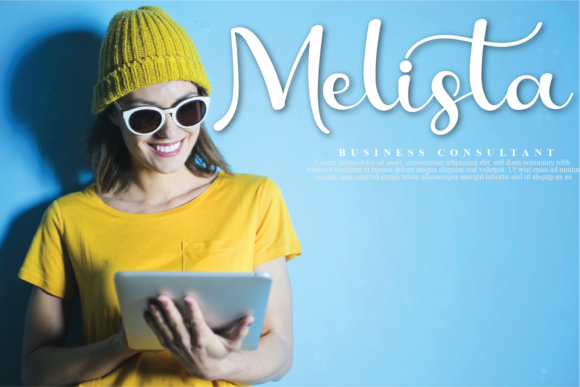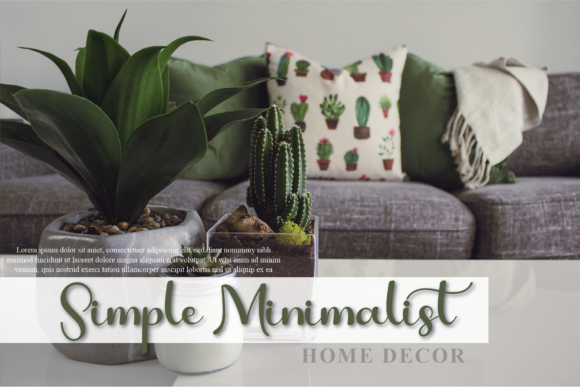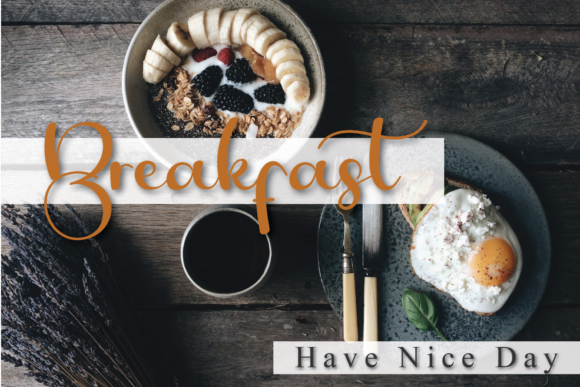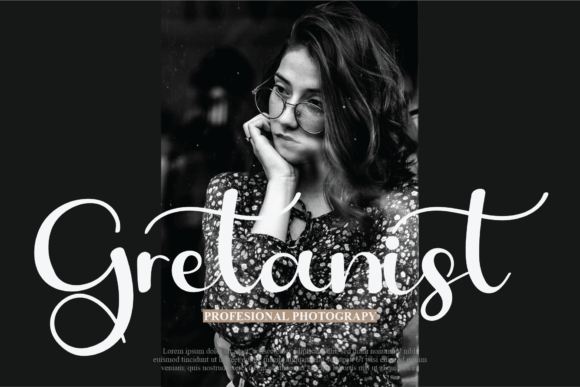
Berto Font: Elevate Your Creations with a Round Lettered and Flowing Script Font
Are you tired of using the same old fonts for your designs and crafts? Look no further than Berto Font, a beautiful round lettered and flowing script font that can instantly bring your creations to life. In this article, we’ll explore the features and benefits of Berto Font, and show you how to incorporate it into your favorite projects.
What is Berto Font?
Berto Font is a unique and elegant script font that features round lettering and flowing strokes. Its distinctive style sets it apart from other fonts, making it perfect for adding a touch of personality and whimsy to your designs. Whether you’re a designer, crafter, or DIY enthusiast, Berto Font is a versatile and easy-to-use font that can elevate your creations and make them stand out.
Key Features of Berto Font
- Round Lettered: Berto Font features round lettering that gives it a soft and friendly feel. This makes it perfect for designs that require a personal touch, such as invitations, greeting cards, and social media graphics.
- Flowing Script: The flowing script style of Berto Font adds a touch of elegance and sophistication to your designs. It’s perfect for creating beautiful headings, titles, and quotes that will capture the attention of your audience.
- Easy to Read: Despite its elegant style, Berto Font is easy to read and understand. This makes it perfect for body text, captions, and other applications where readability is important.
- Highly Versatile: Berto Font can be used for a wide range of design applications, from digital graphics to print materials. It’s perfect for designers, crafters, and DIY enthusiasts who want to add a personal touch to their creations.
Benefits of Using Berto Font
So why should you choose Berto Font for your designs and crafts? Here are just a few benefits of using this beautiful font:
- Adds Personality: Berto Font adds a touch of personality and whimsy to your designs, making them stand out from the crowd.
- High-Quality: Berto Font is a high-quality font that is designed to produce crisp and clear results, even at small sizes.
- Supports Multiple Languages: Berto Font supports multiple languages, making it perfect for designers and crafters who work with international clients or audiences.
How to Use Berto Font in Your Designs
- Pair it with Other Fonts: Berto Font looks great when paired with other fonts, such as sans-serif fonts or serif fonts. Experiment with different combinations to find the one that works best for your design.
- Use it for Headings and Titles: Berto Font is perfect for creating beautiful headings and titles that will capture the attention of your audience.
- Add it to Your Social Media Graphics: Berto Font is a great addition to social media graphics, such as Instagram posts and Facebook graphics.
- Use it for Invitations and Greeting Cards: Berto Font is perfect for creating beautiful invitations and greeting cards that will make your recipients feel special.